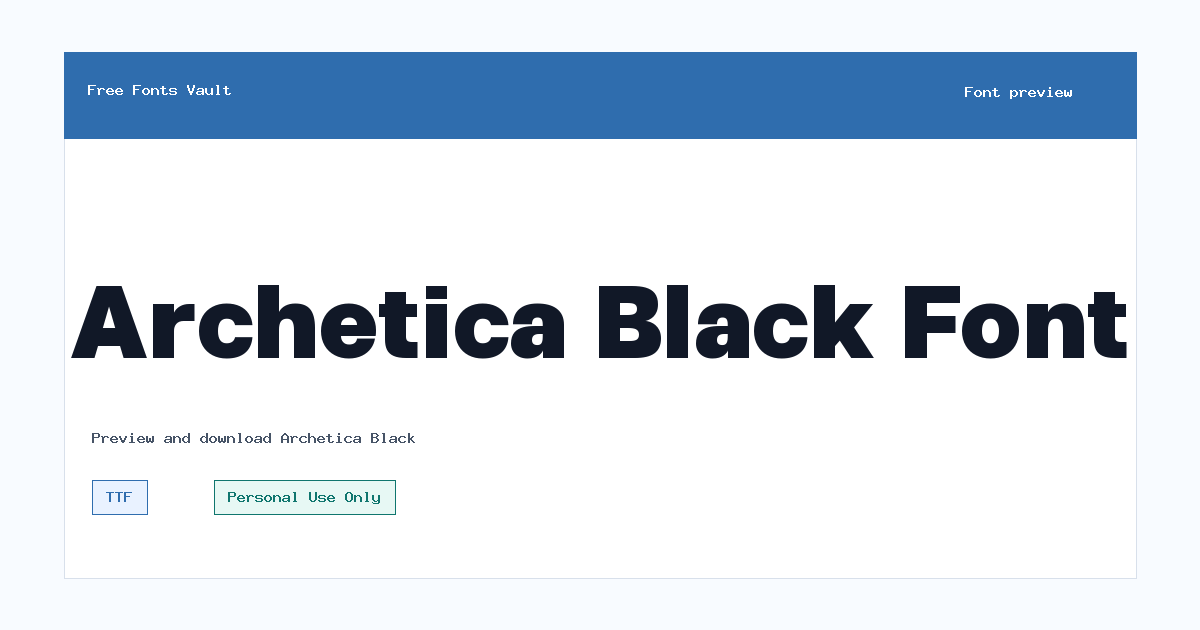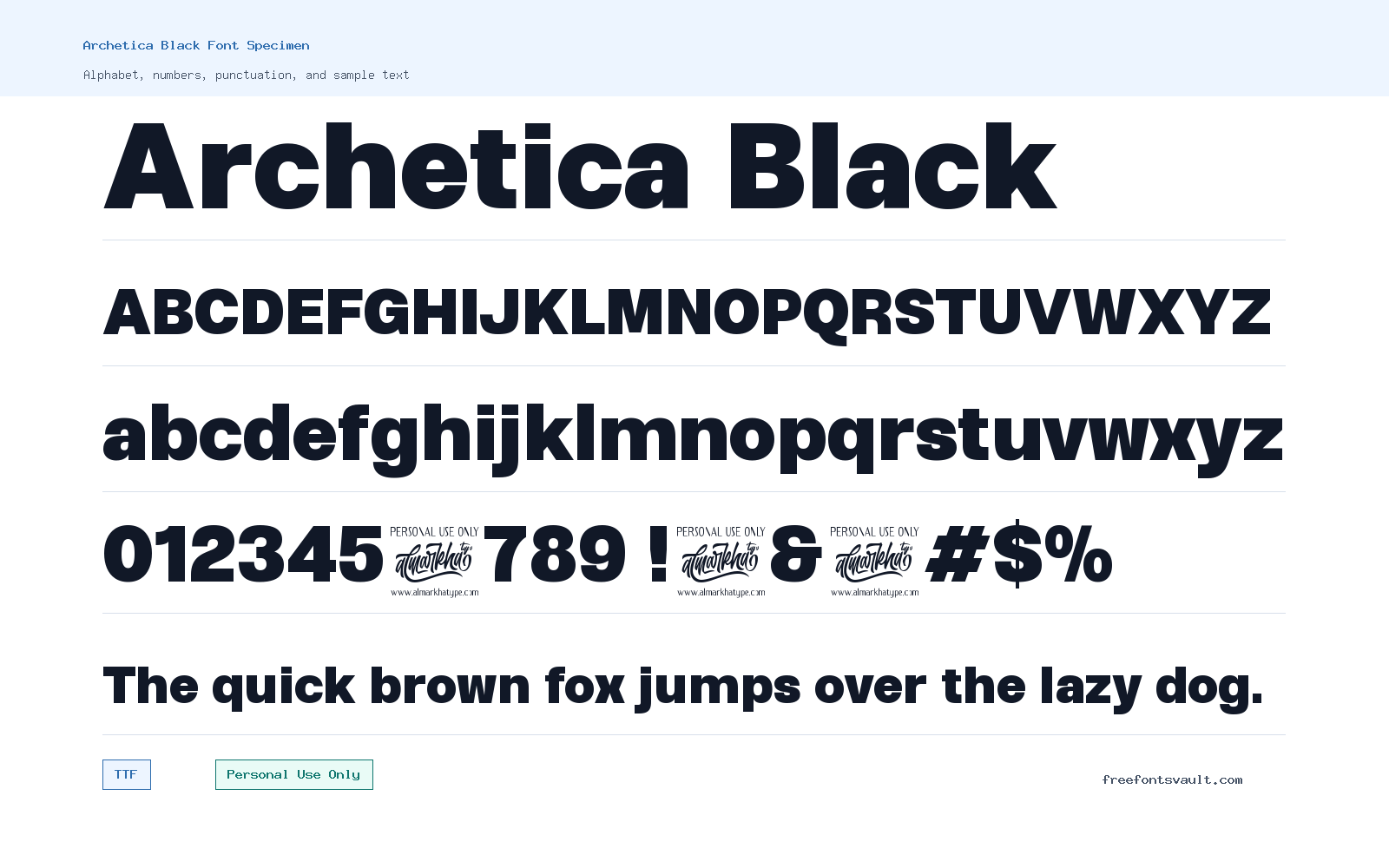
Archetica Black
Archetica Black font.
Archetica Black is the heavy 900-weight style from the Archetica sans serif family by Ridwan Fadilah and Malik Wisnu of Almarkhatype. It is a bold, clean, geometric-looking font made for strong display text, especially when you need a headline or logo draft to feel firm and modern without adding decorative effects.
About Archetica Black Font
Archetica Black works best when it has room to breathe. Its black weight gives words a dense, confident shape, so short lines usually look stronger than long paragraphs. Try it for poster headlines, social graphics, YouTube thumbnails, packaging mockups, apparel text, website hero titles, and logo concepts where the main wordmark needs a solid sans serif voice. The style is not a script, serif, or textured display font; its appeal comes from clean structure, weight, and directness. That makes it useful when you want a design to feel current and organized rather than handmade or vintage.
Because this is the Black style, it can become too heavy at small sizes or in tight layouts. For web mockups, test it first in navigation labels, large hero text, section headers, and short callouts rather than full body copy. In logo work, check the spacing between wide and narrow letters, especially in all caps. A small amount of tracking can help heavy sans serif letters avoid looking crowded. For posters and thumbnails, use strong contrast: pair Archetica Black with plenty of empty space, a lighter supporting font, or a simple color system. The font files are offered in both TTF and OTF formats, which gives designers flexibility for common desktop design apps and font testing projects.
- Heavy 900-weight sans serif style suited to large display typography.
- Clean geometric sans serif character, useful for headlines, branding drafts, posters, and digital mockups.
- Part of the wider Archetica family, which is described by font catalog sources as having multiple weights and oblique styles.
- Bold poster titles and event graphics
- Logo concepts, wordmark drafts, and brand presentation mockups
- Website hero headings and landing page typography tests
- Social media images, thumbnail text, and quote graphics
- Large all-caps headings where a clean geometric sans serif look is needed
Use Archetica Black as a display font first. Start with short words, large sizes, and moderate spacing, then test lowercase, numerals, punctuation, and accented characters if your project needs them. For pairing, keep the supporting typeface calmer and lighter: a regular-weight sans serif works well for body text, while a restrained serif can add contrast in editorial layouts. Avoid pairing it with another very heavy display font unless the design intentionally needs a loud, compressed visual style. If you are preparing a logo or poster, preview the font in black and white before adding color; this makes spacing and letter balance easier to judge.
What kind of font is Archetica Black?
It is a heavy sans serif display style. Catalog sources describe the Archetica family as a modern geometric sans serif, and this Black cut is the strong 900-weight style.
What is Archetica Black best used for?
Use it for short, bold text such as posters, logo drafts, hero headings, packaging mockups, social media graphics, and thumbnail titles. It is less suitable for long reading text because the weight is very heavy.
What should I pair with Archetica Black?
Pair it with a lighter, quieter font so the headline stays in control. A regular sans serif is a safe choice for body text; a simple serif can work when you want more editorial contrast.